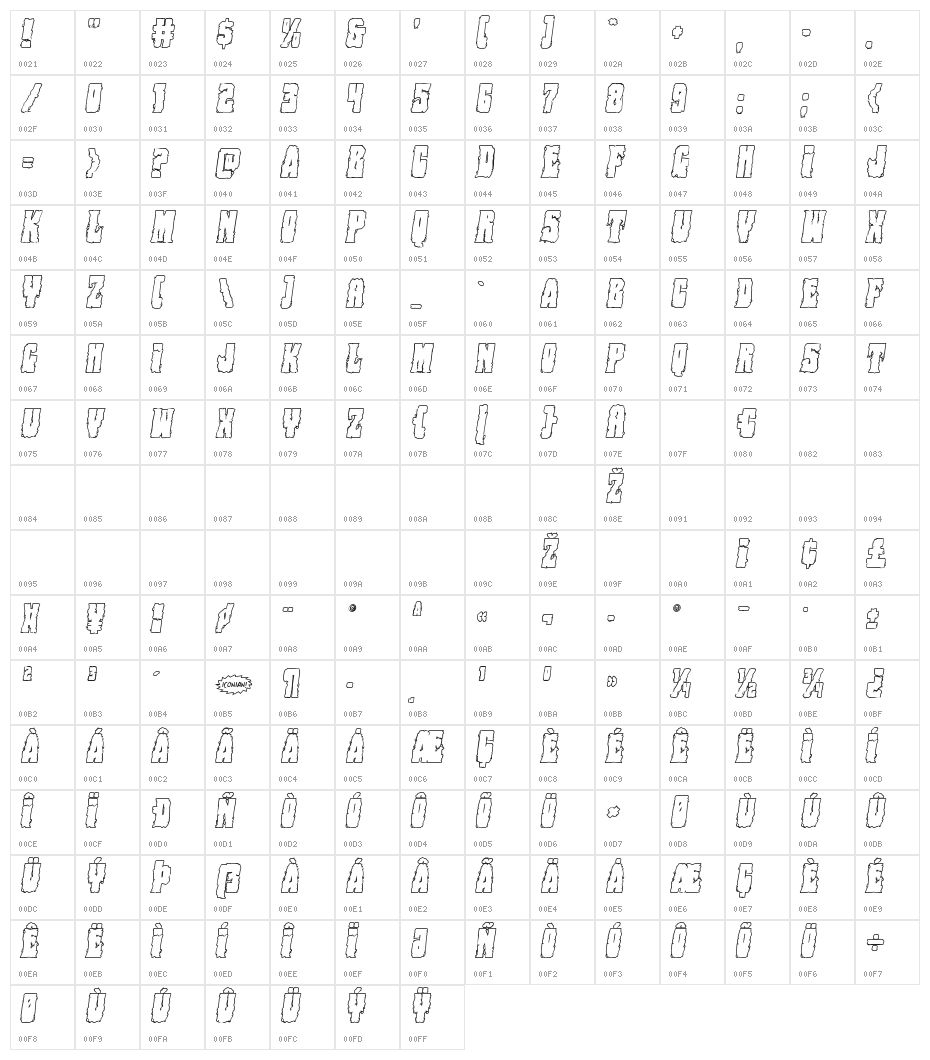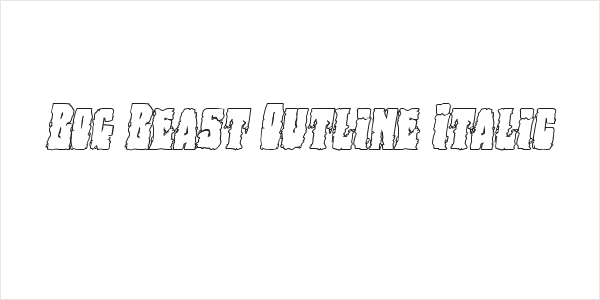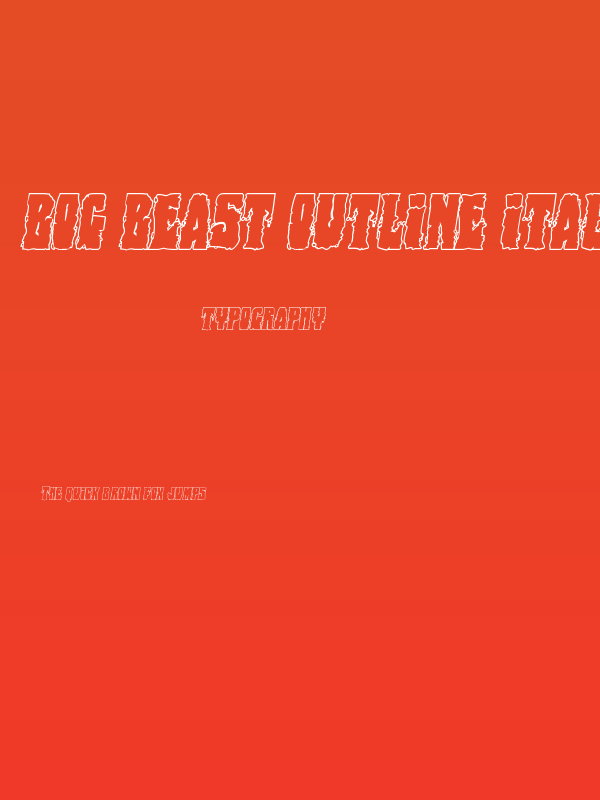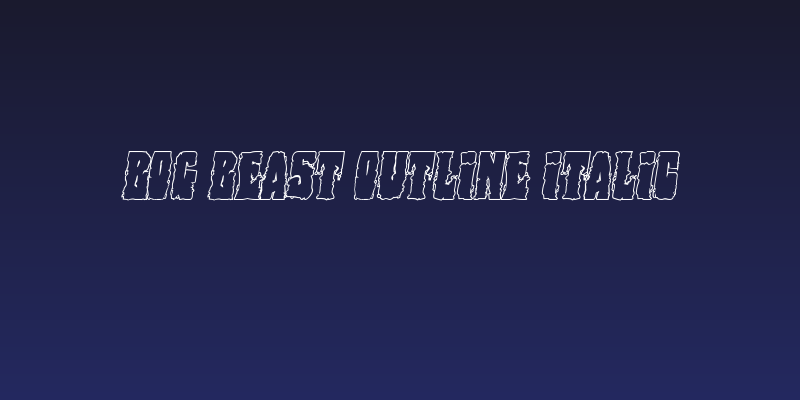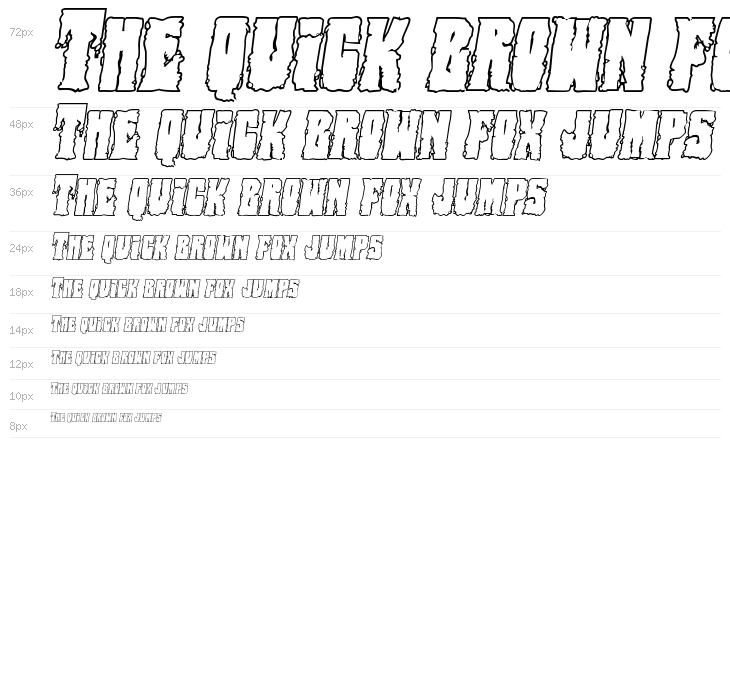
Bog Beast Outline Italic Font
Bog Beast Outline Italic Description
This font features a bold, rugged outline style that gives it a distinctive, textured appearance. The characters are designed with irregular, jagged edges, reminiscent of natural, organic forms like rocks or bark. This design choice creates a sense of movement and energy, making it ideal for attention-grabbing headlines or thematic designs. The uppercase and lowercase letters maintain a consistent style, with a slightly condensed width that enhances its bold presence. The numbers and special characters follow the same aesthetic, ensuring a cohesive look across all text elements. The font's unique style is both playful and edgy, suitable for creative projects that require a standout typeface.
| Proposed Projects | Ideal for Halloween-themed designs, posters, video game graphics, or any project requiring a bold, eye-catching typeface. |